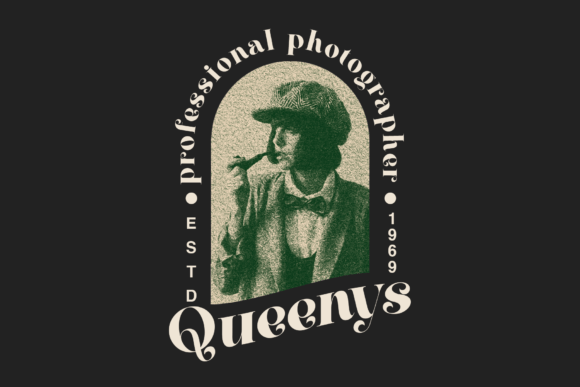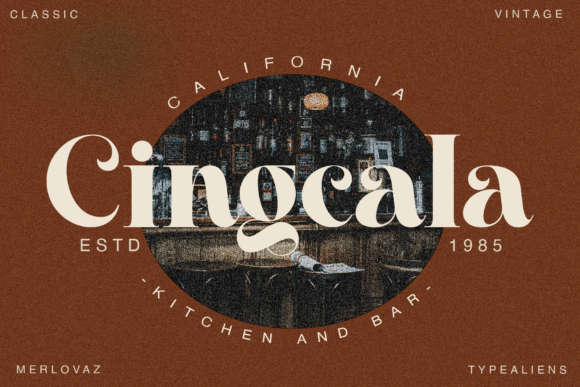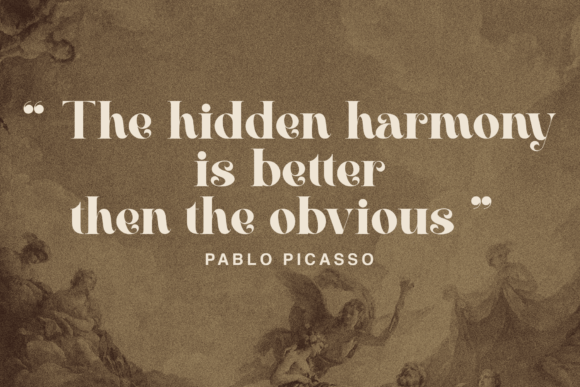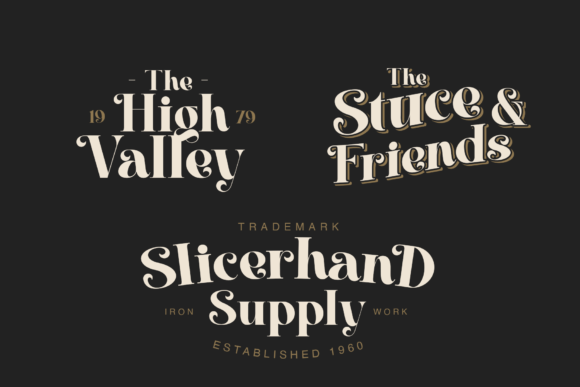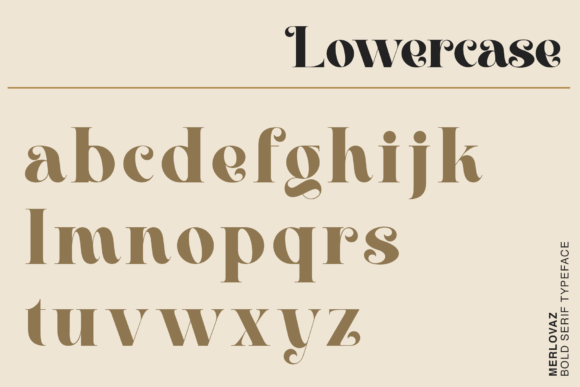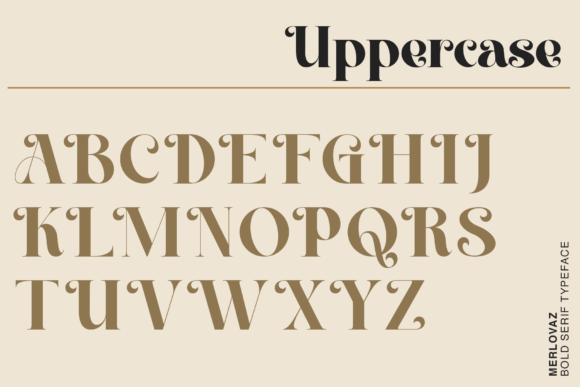
Introduction to Merlovaz Font
Merlovaz is a bold, vintage-style serif font that has beautiful curves.
This font is basically a classic serif font that is thick and has a slightly beautiful feature because the strokes have beautiful bends so that even though it is sturdy it still has a beautiful side It is very suitable for vintage designs such as a brand logo badge and liquor labels but also works well in more modern designs like magazine headlines.
Key Features of Merlovaz Font
Why Choose Merlovaz Font?
Merlovaz Font offers exceptional quality and versatility, making it a valuable addition to your design toolkit. Whether you’re creating for personal projects or commercial use, Merlovaz Font delivers professional results.